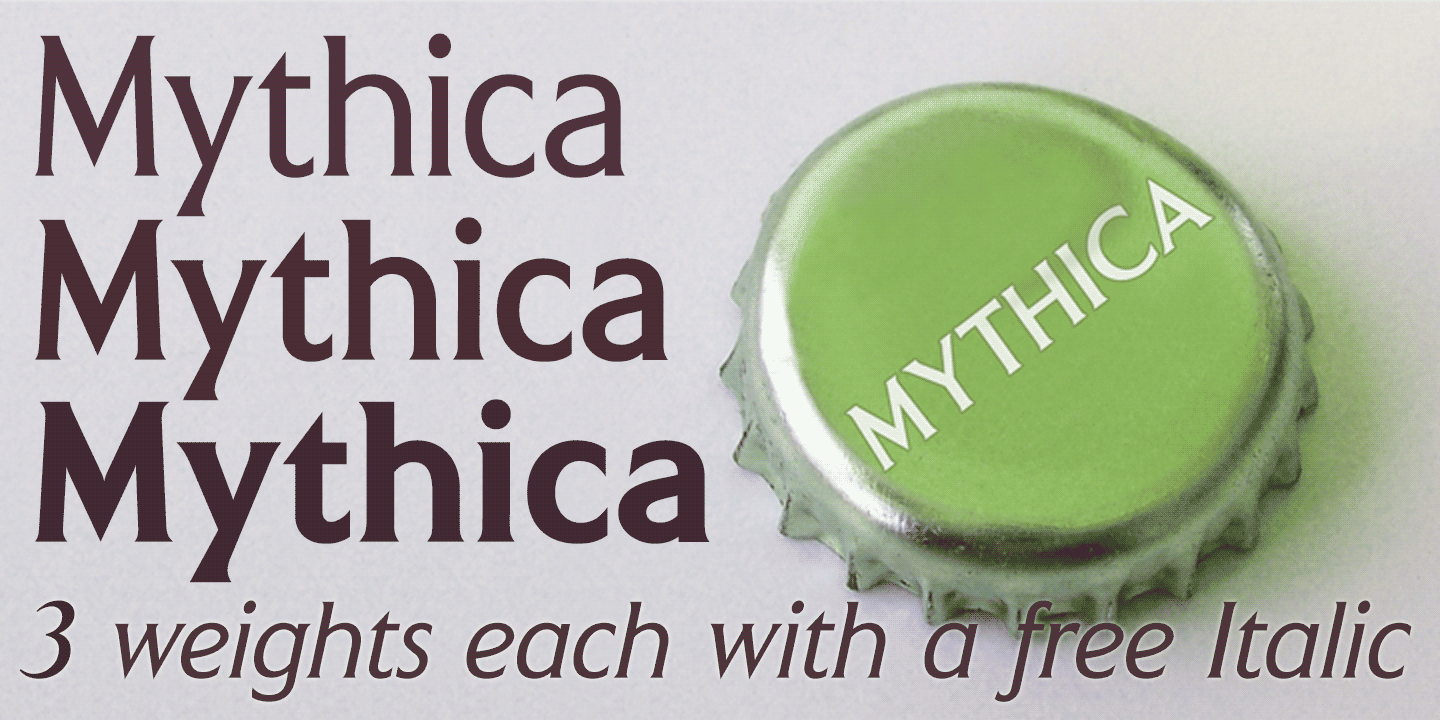
Mythica Font Free Download is a mystical, elegant typeface that blends fantasy-inspired design with refined letterforms, making it perfect for book covers, movie posters, gaming titles, branding, and fantasy-themed projects. With its enchanting curves and unique character shapes, Mythica Font evokes a sense of magic and storytelling, ideal for designs that need a mythical or otherworldly aesthetic.
With Mythica Font Free Download, you’ll receive a complete set of uppercase, lowercase, numbers, and essential punctuation, offering flexibility across both print and digital applications. Whether you’re creating a fantasy novel title, event invitations, or merchandise designs, this font adds drama and sophistication while maintaining readability.
Enhance your creative work with Mythica Font Free Download. Its magical, fantasy-inspired style helps your designs stand out with charm and intrigue, making it a valuable addition to any designer’s font collection.